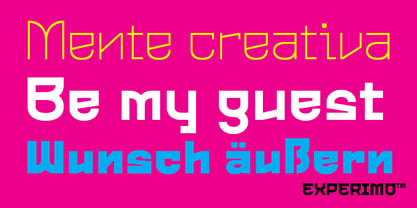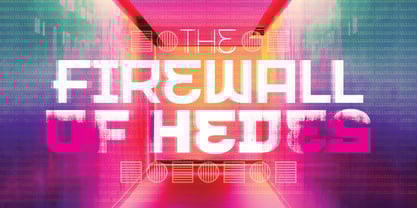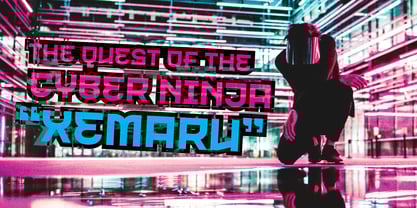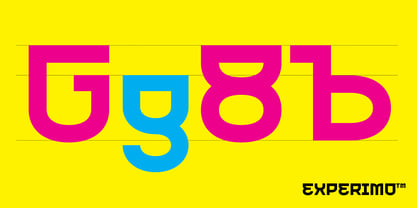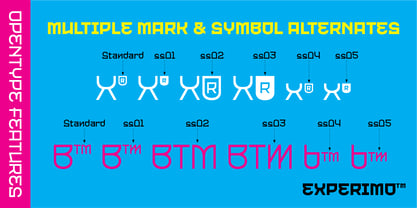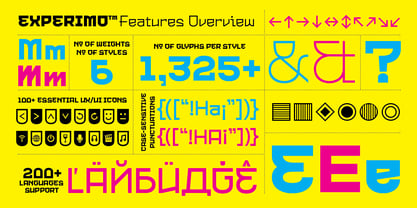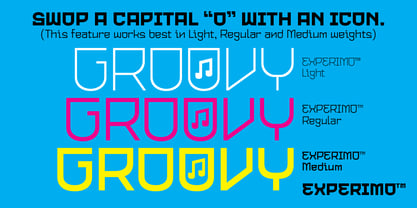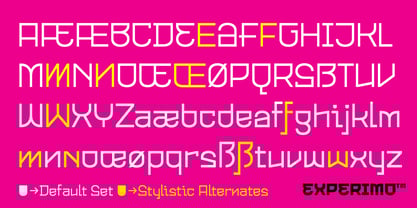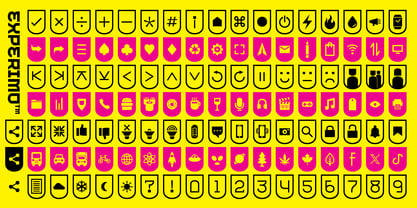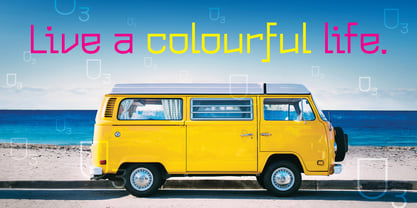
Experimo
The Experimo Font Family was designed by Tana Kosiyabong and published by R9 Type+Design. Experimo contains 6 styles and family package options.
An offbeat type that makes your heart beats faster.
Experimo™ is an experimental display sans serif font family that celebrates the juxtaposed contrast between the round and rectangle shapes. This unconventional typeface comes in 6 weights and styles, each with over 1,325 glyphs. Experimo™ supports most Latin and Cyrillic languages and offers a wide range of stylistic alternatives. The font conveys a modern and futuristic feel while being playful and distinct. Use the Experimo™ typeface for eye-catching design now.
Experimo™ is more than just a quirky typeface.
Experimo™ Display Sans comes loaded with Opentype features such as case-sensitive marks, punctuations and mathematic symbols. It also comes with over 100 essential UX/UI icons, each in three design options. These various Opentype features enhance your user experience, simplify your workflow, and provide more typography options for your designs. If you need an experimental typeface for packaging, infographics, logos, print, movie titles, or digital projects, consider trying Experimo™ today!